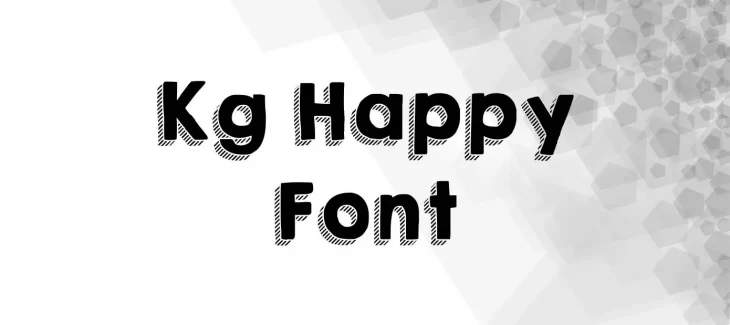
KG Happy Font is a popular font used by many people for their personal and business needs. The font has been created by KGfonts, which is a leading provider of fonts for both personal and commercial use. The font was first released in 2010 and has since become one of the most widely used fonts available.
This Font is a simple, yet stylish font that is perfect for both personal and business use. The font is available in a variety of different sizes and styles, making it perfect for any need. The font is also extremely easy to read, making it a great choice for those who need a simple, yet effective font.
If you are looking for a simple, yet stylish font for your personal or business needs, then KG Happy Font is the perfect choice for you. This typeface is also very good for copy-paste function. The font is available in a variety of different sizes and styles, making it perfect for any need.
KG Happy Font is perfect for both personal and business use. The font is available in a variety of different sizes and styles, making it perfect for any need. The font is also extremely easy to read, making it a great choice for those who need a simple, yet effective font.
This font is also commonly used for branding purposes, as it is a very recognizable font. Many companies and brands use this Font for their logos and branding materials. If you are looking for a recognizable font for your brand, then KG Happy Font is a perfect choice.
KG Happy Font Family Appearance
| Designer | KGfonts |
| Style | Fancy |
Because of its condensed stylish characters and good shape, it is very easy to read for users and readers also. The visual of this font on textual design feels good for viewers.